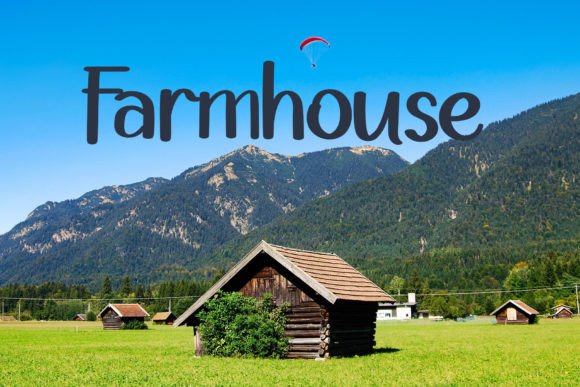
Alice in Wonderland Font: A Timeless and Versatile Display Font
The “Alice in Wonderland Font” is a classic and simple display font that has captured the hearts of designers and enthusiasts alike. Created in a free and random style, this font is perfect for a wide range of applications, from logotypes and headlines to corporate identity, brand identity, and more. In this article, we’ll explore the world of Alice in Wonderland Font, its features, and its versatility, making it an ideal choice for various industries and creative projects.
Key Features of Alice in Wonderland Font
- Classic and Simple Design: The Alice in Wonderland Font boasts a timeless design that exudes simplicity and elegance. Its classic look makes it suitable for a wide range of applications, from traditional to modern designs.
- Free and Random Style: The font’s free and random style gives it a unique and playful touch, making it perfect for creative projects that require a dash of whimsy.
- Versatile and Adaptable: The Alice in Wonderland Font is highly versatile and can be used for various purposes, including logotypes, headlines, corporate identity, brand identity, and more.
Alice in Wonderland Font in Action: Usage Examples
The Alice in Wonderland Font is suitable for a wide range of applications, including:
- Logotypes and Headlines: The font’s bold and playful design makes it perfect for creating eye-catching logotypes and headlines that grab attention.
- Corporate Identity and Brand Identity: The font’s classic and simple design makes it an excellent choice for corporate identity and brand identity projects, such as business cards, letterheads, and brochures.
- Apparel Industry: The Alice in Wonderland Font is a great choice for the apparel industry, including t-shirts, hoodies, and other clothing items.
- Posters, Music, Movies, and Games: The font’s playful and creative design makes it perfect for posters, music albums, movie titles, and game packaging.
- Magazines, Books, Comics, and Cartoons: The font’s versatility makes it suitable for various publishing projects, including magazines, books, comics, and cartoons.
- YouTube and Instagram: The Alice in Wonderland Font can be used to create engaging and eye-catching titles, descriptions, and graphics for YouTube videos and Instagram posts.
Design Tips for Using Alice in Wonderland Font
To get the most out of the Alice in Wonderland Font, here are some design tips to keep in mind:
- Experiment with Font Sizes: The font’s bold design makes it suitable for large and small font sizes. Experiment with different font sizes to create visual interest and hierarchy.
- Play with Colors: The Alice in Wonderland Font looks great in various colors. Experiment with different color combinations to add personality and style to your design.
- Combine with Other Fonts: The font’s versatility makes it easy to pair with other fonts. Experiment with different font combinations to create a unique and visually appealing design.
The Benefits of Using Alice in Wonderland Font
The Alice in Wonderland Font offers several benefits, including:
- Unique and Playful Design: The font’s free and random style gives it a unique and playful touch that sets it apart from other fonts.
- Highly Versatile: The font’s versatility makes it suitable for a wide range of applications and industries.
- Easy to Read: The font’s classic and simple design makes it easy to read, even at small font sizes.
The Alice in Wonderland Font is a timeless and versatile display font that offers a unique and playful design. Its classic and simple look makes it suitable for a wide range of applications, from logotypes and headlines to corporate identity, brand identity, and more. With its highly adaptable design and ease of use, the Alice in Wonderland Font is an excellent choice for designers and enthusiasts looking to add a touch of whimsy and personality to their creative projects.